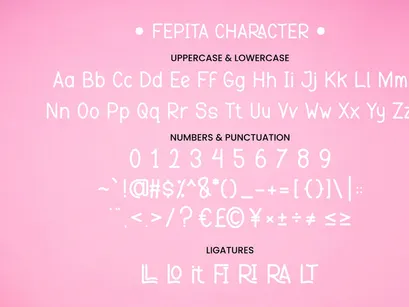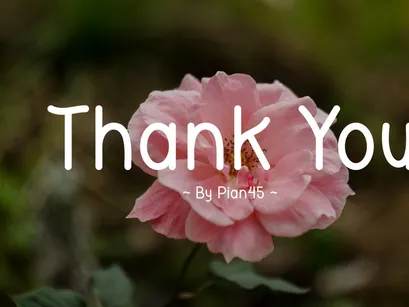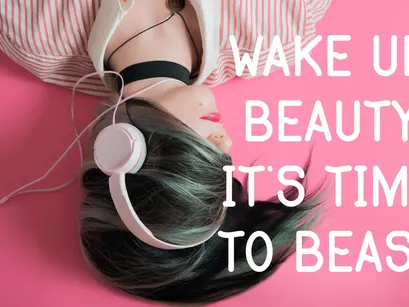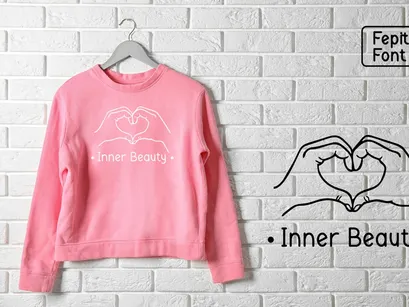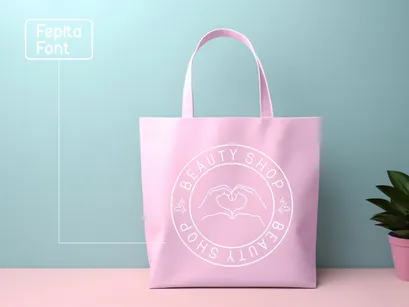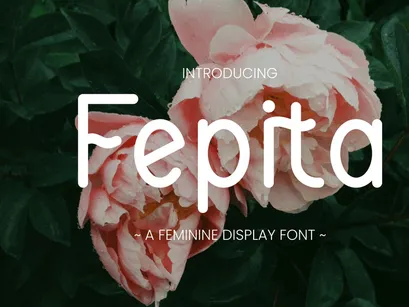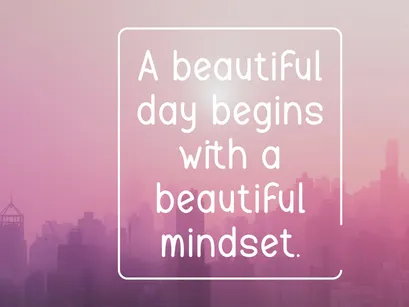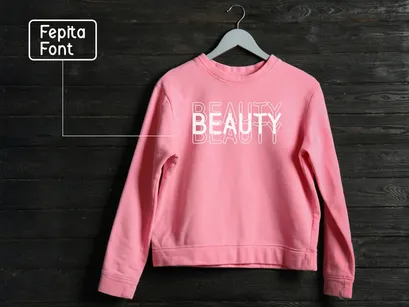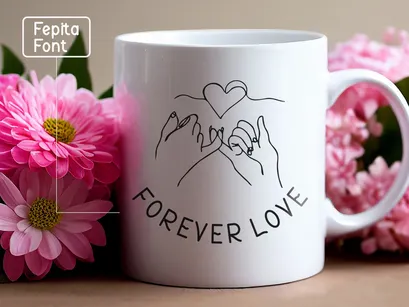
Fepita - Feminine Display FontPremium
Fepita - Feminine Display Font
FEPITA
"Fepita" is a charming and delicate typeface that encapsulates both cuteness and femininity. With its adorable and soft design, this font brings a touch of elegance to any project. The playful curves and graceful strokes of each letter evoke a sense of warmth and beauty. Inspired by a theme of soft pink hues, "Fepita" exudes a gentle and stylish aura that's perfect for projects targeting a feminine and chic audience. Whether used for invitations, branding, or social media graphics, "Fepita" adds a delightful and sophisticated flair to every design.
• Uppercase and Lowercase letters
• Numbering, Punctuations and Ligatures